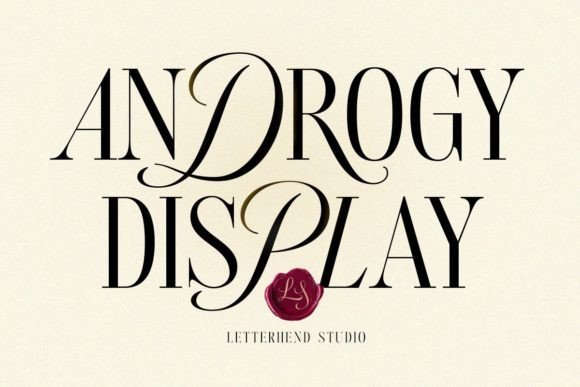
Unlocking the Art of Androgyny in Typography
Have you ever been rummaging through your grandmother’s old trunk, discovering a treasure trove of vintage stationery and dusty invitations, only to be captivated by the elegant scripts and refined serifs? That’s the magic of typography, and it’s what inspires designers to push the boundaries of creativity.
Enter Androgy Display Font, a sophisticated serif that seamlessly blends the best of both worlds: script uppercase and serif lowercase. This unique fusion is perfect for adding a touch of sophistication to your next design project, whether it’s a luxury invitation, a high-end fashion label, or a stunning book cover.
For designers, Androgy Display Font offers a valuable opportunity to elevate their work and stand out from the crowd. With its versatility and elegance, it’s the perfect tool to add a touch of androgyny to your designs and make a lasting impression.
Androgy Display Font Key Features
- Size: The font family includes multiple weights, ranging from Thin (100) to Extra Bold (800), providing flexibility for various design applications.
- Unique Characteristics: Androgy Display Font features a unique blend of masculine and feminine characteristics, with rounded edges and subtle curves that make it suitable for both modern and traditional designs.
- Language Support: The font includes comprehensive language support, covering Latin, Greek, and Cyrillic alphabets, as well as various diacritical marks and symbols.
- Font Metrics: The font’s metrics are carefully designed to ensure optimal readability, with features such as x-height, cap height, and baseline alignment carefully calibrated for maximum legibility.
Androgy Display Font Review
Overall, I found the Androgy Display Font to be an intriguing and unique addition to any design project. ✨ One of its standout features is its versatility – it works well in a variety of contexts, from headings to body text, and even as a title font. The font’s androgynous nature makes it suitable for a range of audiences, and its clean lines give it a modern feel.
Some of the font’s strengths include:
- ✨ Excellent legibility: The font is easy to read, even at smaller sizes.
- ✨ High customization options: The font can be easily customized to fit the specific needs of a project.
- ✨ Unique aesthetic: The font’s androgynous design gives it a distinctive look that sets it apart from other fonts.
- ⚠️ Limited character set: The font may not include all the characters you need, particularly if you’re working with languages that use non-Latin scripts.
- ⚠️ Not suitable for all audiences: While the font’s androgynous nature makes it versatile, it may not be the best choice for projects that require a strongly masculine or feminine aesthetic.
Overall, I think the Androgy Display Font is a solid choice for designers who want a unique and versatile font. While it has some limitations, its strengths make it a valuable addition to any design project.
Getting the Most Out of Androgy Display Font
For best results, use Androgy Display Font for headings and titles. This font is ideal for making a statement and adding a touch of sophistication to your design.
Androgy Display Font is perfect for:
- Designing business cards and brochures.
- Creating eye-catching headlines and titles.
- Adding a touch of elegance to your website or blog.